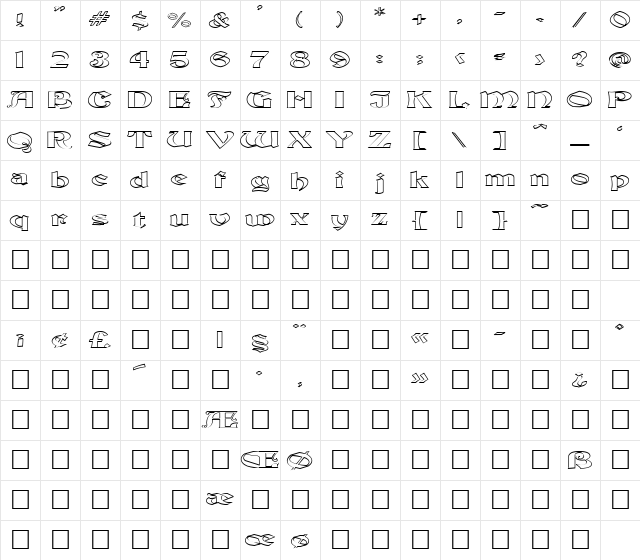
FZ JAZZY 19 HOLLOW EX Medium
Design Context for FZ JAZZY 19 HOLLOW EX
FZ JAZZY 19 HOLLOW EX is a composed and adaptable typeface that performs quietly and consistently across a wide range of design contexts.